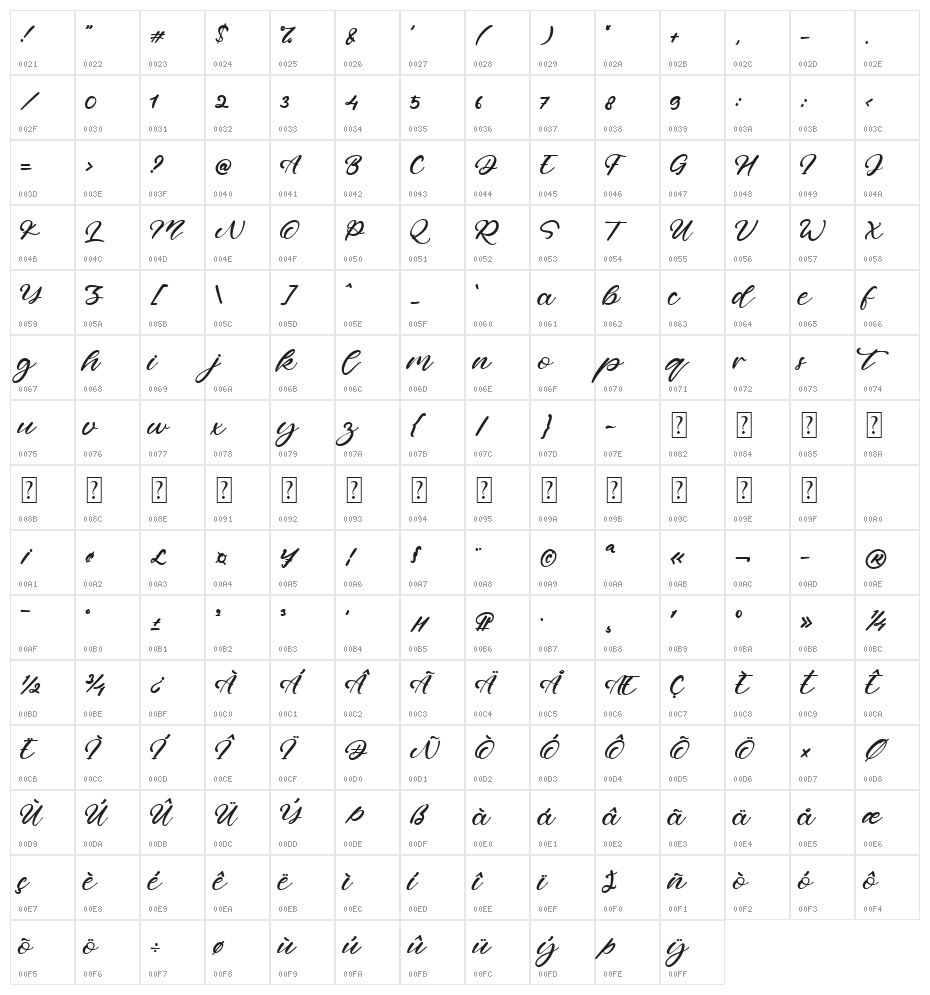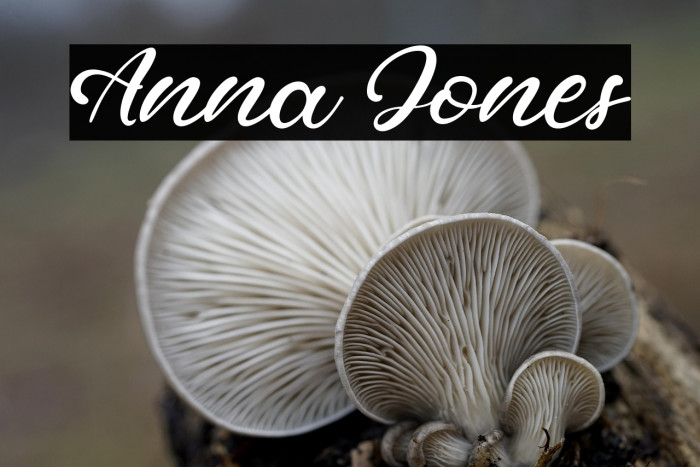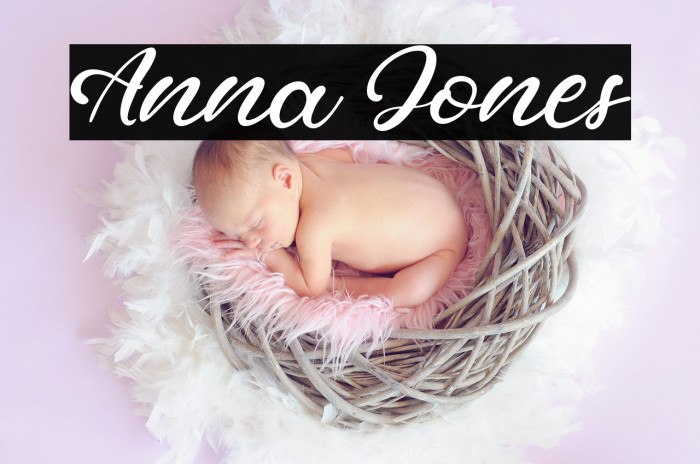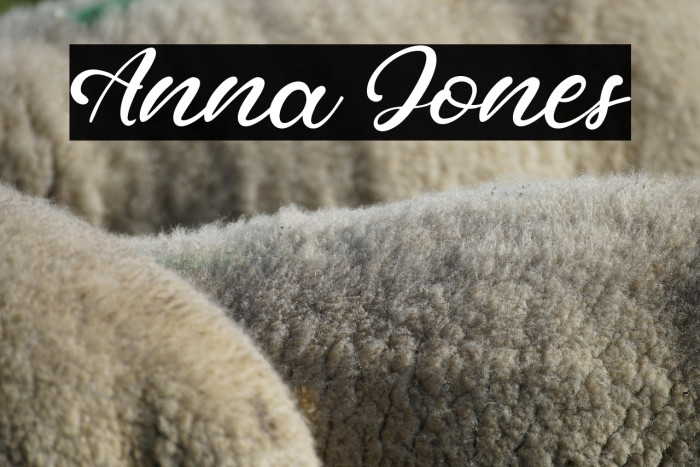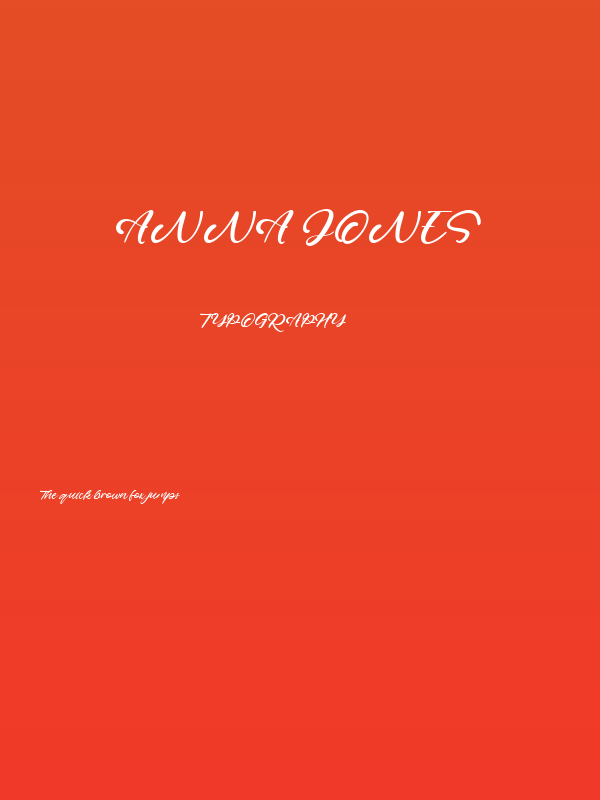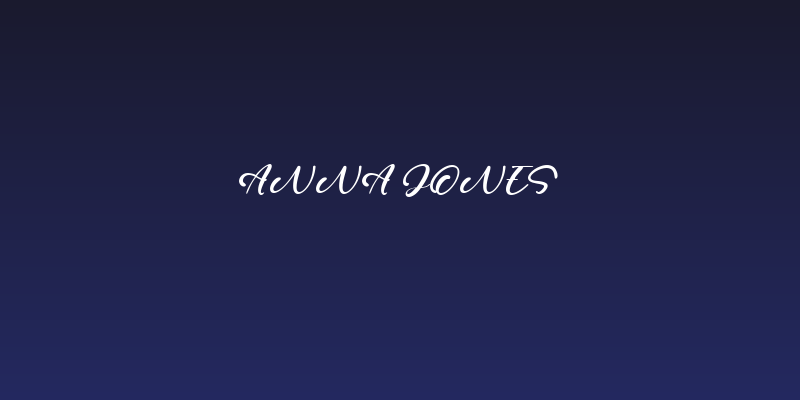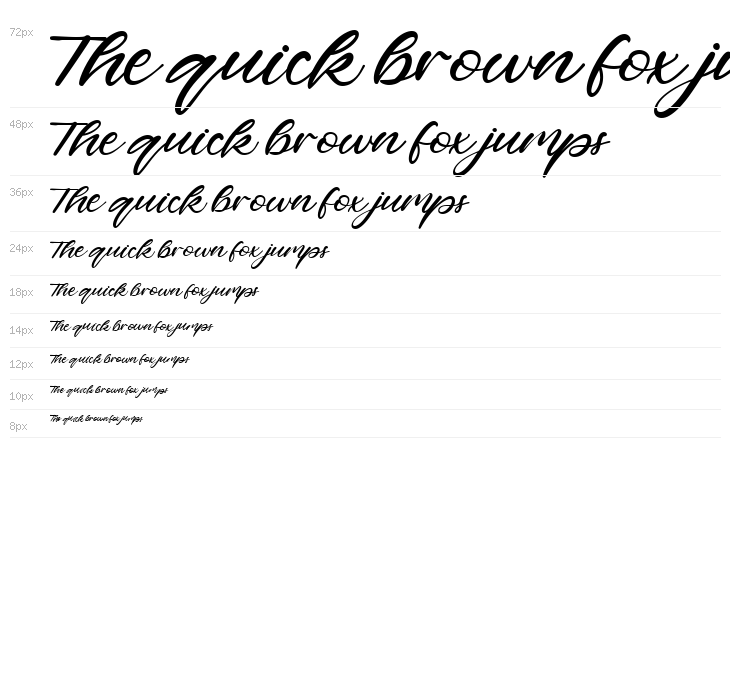
Anna Jones Font
Anna Jones Description
This font features an elegant and flowing script style, characterized by its smooth, connected strokes and a sense of fluidity. The uppercase letters exhibit a graceful, cursive form with a slight slant, while the lowercase letters maintain a consistent, harmonious flow. The numerals are designed to complement the script style, offering a cohesive look across all characters. Special characters are crafted with the same attention to detail, ensuring they blend seamlessly with the overall aesthetic. This font exudes a sense of sophistication and is ideal for projects that require a touch of elegance and refinement.
| Overall Style | Elegant |
| Use Case | Logos, Invitations, Branding |
| Proposed Projects | Ideal for wedding invitations, elegant branding, personal stationery, and upscale packaging. |